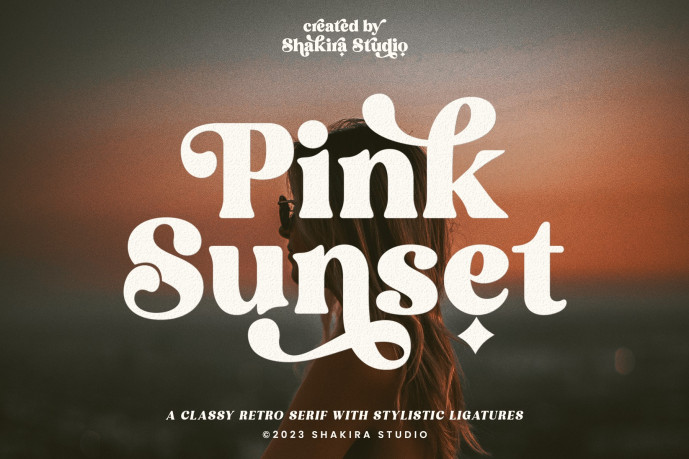
Pink Sunset Font
Pink Sunset Font is a stylish font It has both modern and retro look. Create bold, gorgeous headlines and elegant designs with a vintage flair. George’s contrasting lines and curved terminals give a sleek, elegant look to logos, holiday cards, wedding invitations, quotes, advertisements, and more.
This font have more than 50 unique alternate and ligature that to give your logo,business card and another project to a unique vintage look. It has Italic version too so what a perfect vintage font!